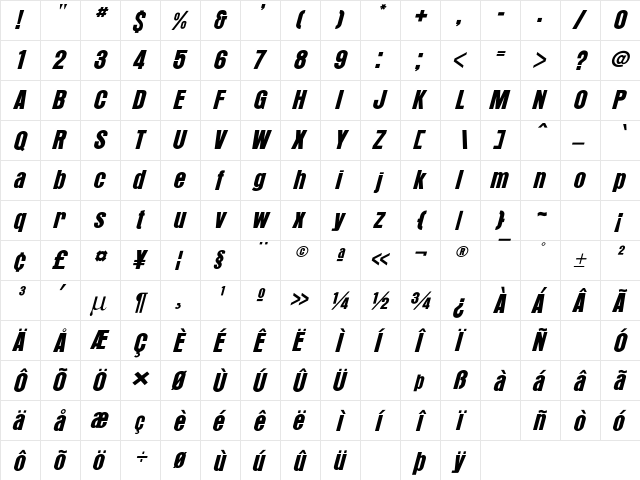
Arroyo Italic
Design Context for Arroyo Typeface
Arroyo offers clean, dependable letterforms without strong stylistic allegiance, making it a practical choice for designers who need flexibility. Its italic angle brings a sense of urgency and motion to the letterforms.
Pro Tip: Try Arroyo for annotation and caption copy alongside an upright companion — the contrast in angle creates a dynamic but ordered typographic system.